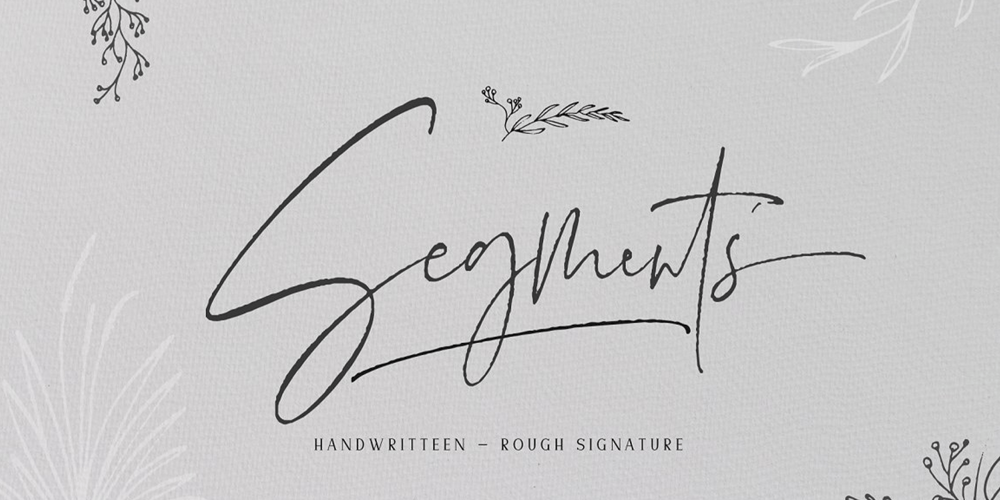
Segments Font Family was designed by Roiyani Teungku and published by Artisan Studio. Segments contains 1 styles and family package options. Segment Rough a work that is purely a result of handwriting, has a natural characteristic. this is perfect for invitations, signatures, blogs, social media, business cards, product brands.Ainsley has Stylistic standard, Stylistic Initial, Stylistic Teminal and ligatures. and includes uppercase and lowercase letters, numbers and punctuation marks.